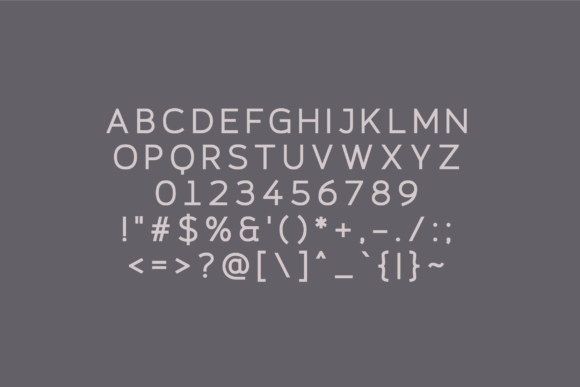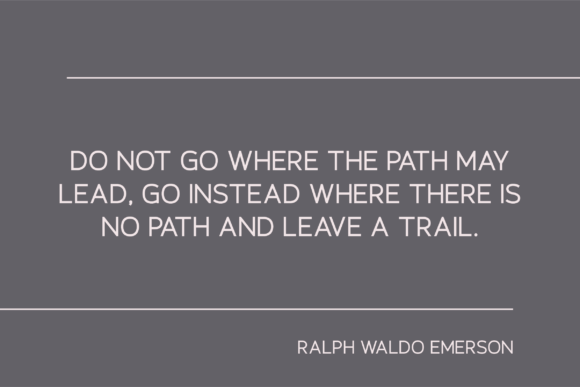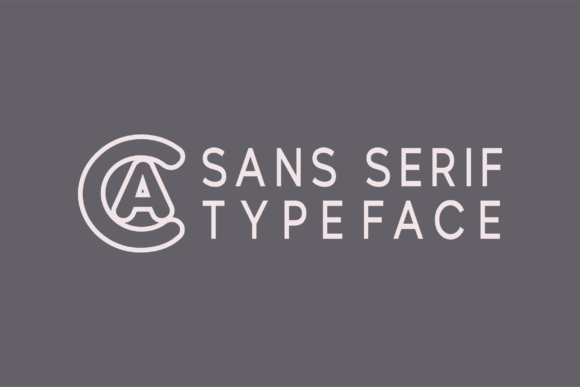
Introduction to Northstar Font Font
Fonts play a crucial role in design, and the Northstar Font font is a typeface that brings both character and versatility to any project. Whether you’re working on a branding project, a website, or a print design, the Northstar Font font offers a unique style that can elevate your work.
Discover Northstar – a sophisticated, fresh-faced sans serif typeface that effortlessly balances modernity with class.
This font embraces a comprehensive spectrum of characters inclusive of numerals from zero to nine, and a broad variety of punctuation and symbols Its extremely adaptable nature makes Northstar the ideal choice across a multitude of applications.
Key Features of Northstar Font Font
Why Choose Northstar Font Font?
The Northstar Font font is more than just a typeface – it’s a design tool that helps you communicate your message with style and clarity. Its unique character set and versatile design make it suitable for a wide range of applications, from elegant invitations to bold headlines.
With its carefully crafted letterforms and balanced proportions, the Northstar Font font ensures readability and visual appeal across all mediums.
What makes Northstar Font font special?
The Northstar Font font stands out with its unique design, exceptional readability, and versatility across various design applications.